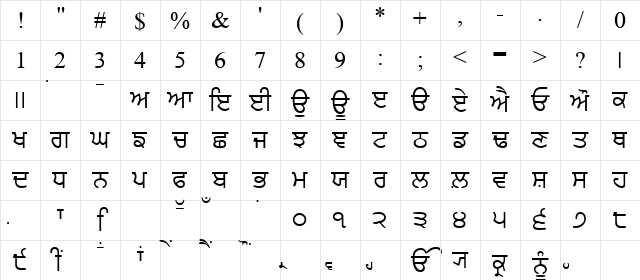
PunjabiAmritsarSSK Regular Free Font
PunjabiAmritsarSSK Regular
Complete PunjabiAmritsarSSK Regular glyph index. Displaying only characters natively supported by PunjabiAmritsarSSK Regular font.
Design Context for PunjabiAmritsarSSK
PunjabiAmritsarSSK is a composed and adaptable typeface that performs quietly and consistently across a wide range of design contexts.